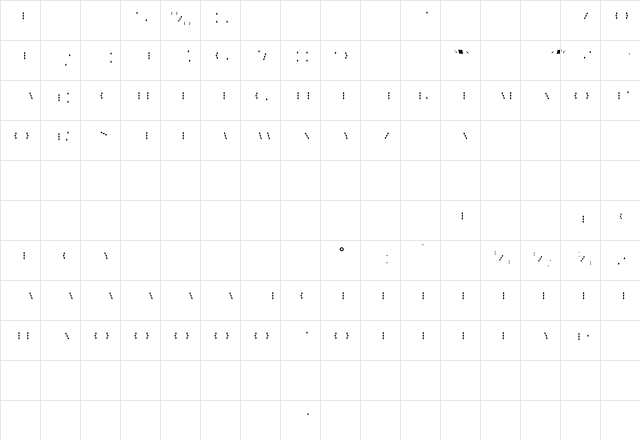
Maverick's Fill Diamonds Regular
Design Context for Maverick's Fill Diamonds Typeface
Maverick's Fill Diamonds takes a measured approach to typography — its balanced proportions and neutral character make it a reliable workhorse for both digital and print work.